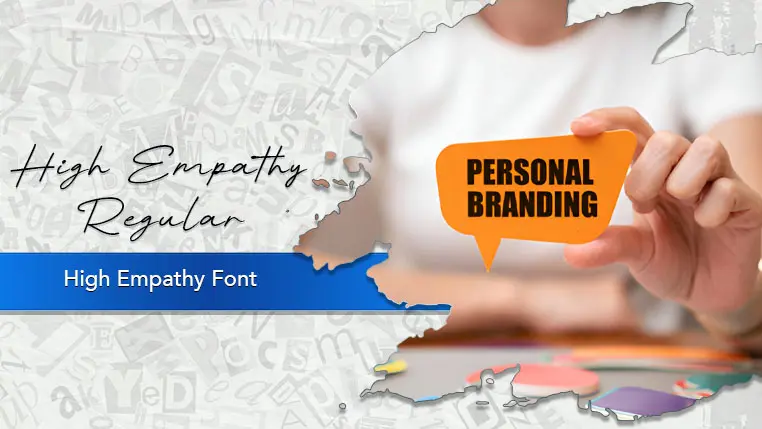
The High Empathy font family may be ideal for you if you enjoy working on an artistic design project. The lively, expressive look of this typeface, which was created by Khurasan, makes it ideal for Quotes, Logos and Branding (especially feminine or personal brands), Wedding Invitations and Stationery, Greeting Cards and Beauty Product Packaging. and other light-hearted visual projects.
Regular are the one primary font styles of the High Empathy font family. You may build dynamic, visually appealing text layouts with the distinct flair that each style offers. With crisp, readable lines and a relaxed tone.